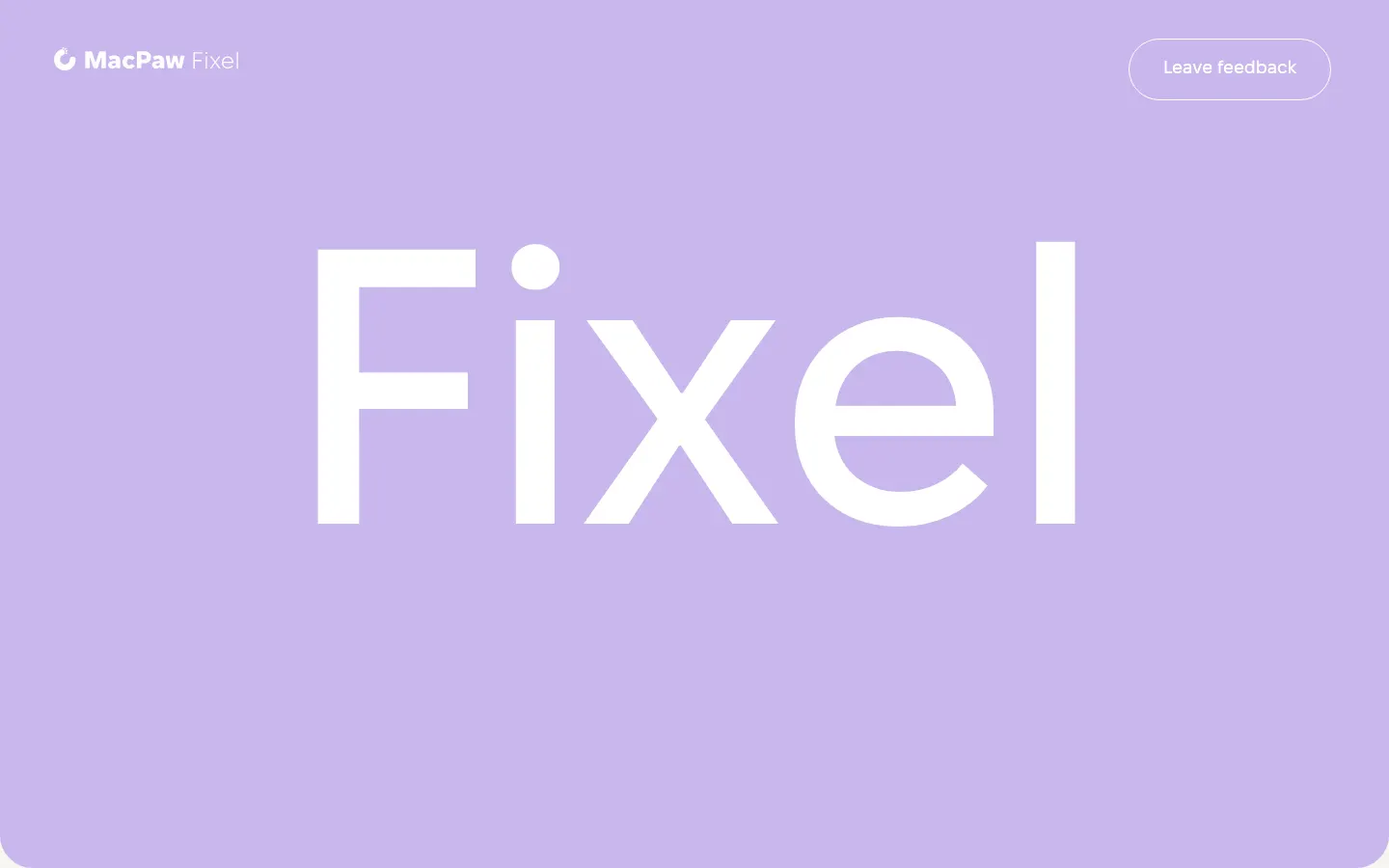
Fixel Font by MacPaw
As a grotesque sans serif, Fixel Font by MacPaw was designed to be a variable typeface with a human touch. We are thrilled to offer it for free.